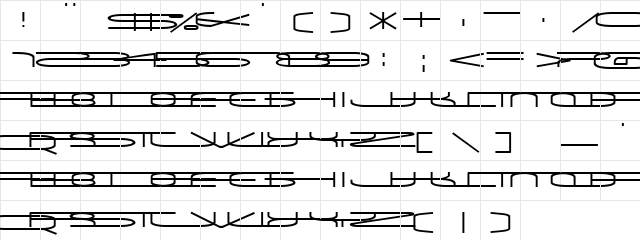
Univox Atom Light
Design Context for Univox Typeface
Univox is a composed and adaptable typeface that performs quietly and consistently across a wide range of design contexts. Its slender proportions lend an understated elegance to any composition.